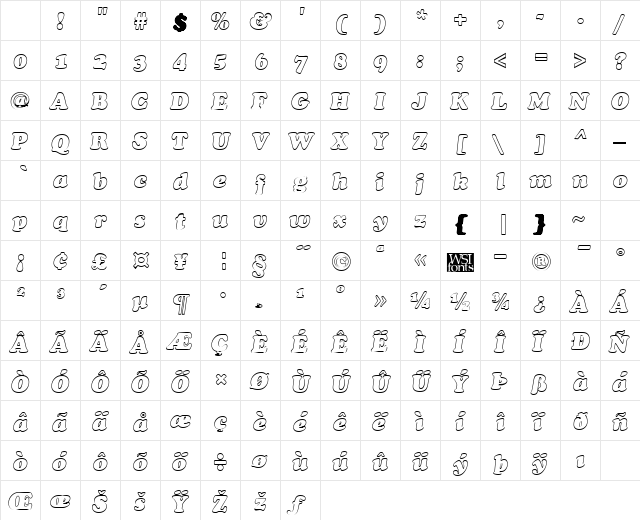
CookieHollow Italic Free Font
CookieHollow Italic
Complete CookieHollow Italic glyph index. Displaying only characters natively supported by CookieHollow Italic font.
Design Context for CookieHollow
CookieHollow is a composed and adaptable typeface that performs quietly and consistently across a wide range of design contexts. The slanted form adds forward momentum and visual energy.